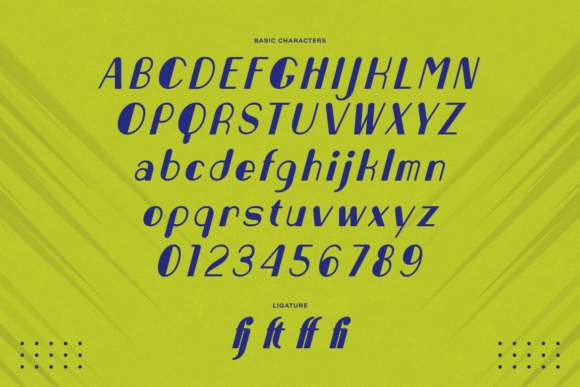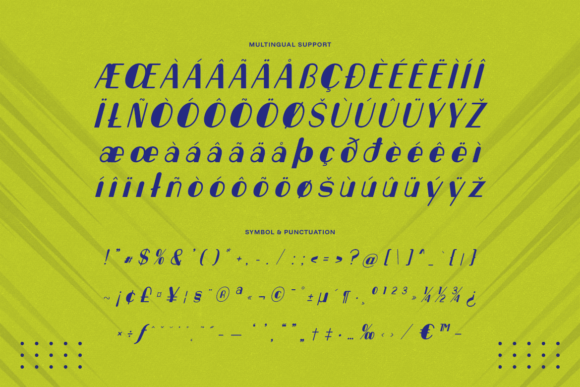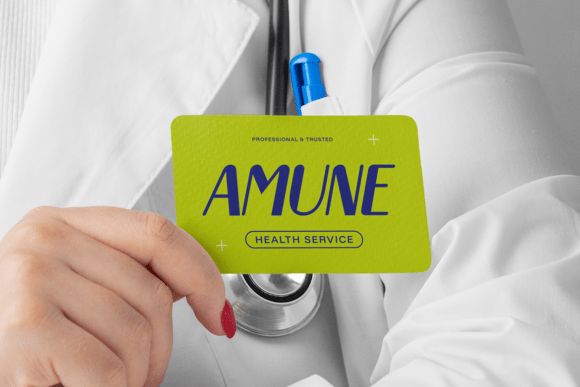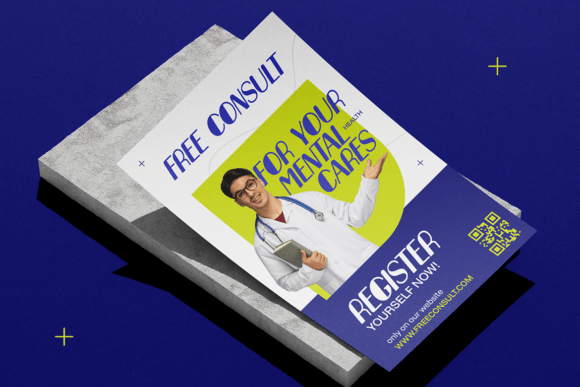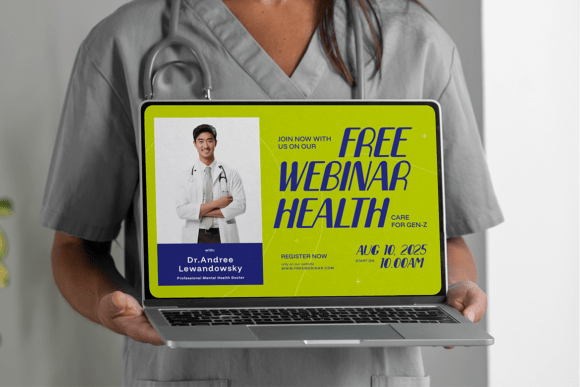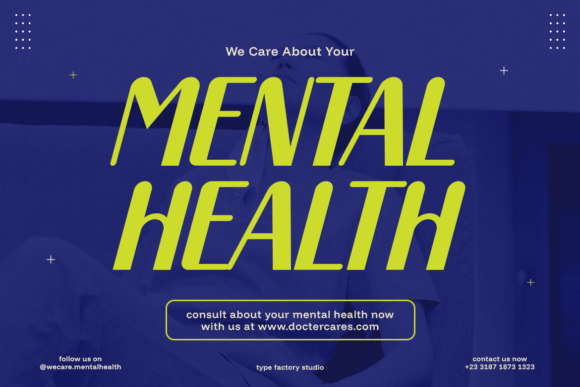
The Power of Movement in Typography
As designers, we’ve all been there – staring at a blank canvas, trying to convey a message that’s been stuck in our heads for hours. The words start to flow, and the excitement builds up. We’re on a roll, and the perfect font can make all the difference. That’s where Bigdoc Font comes in – a game-changer for anyone looking to add some energy to their typography.
Bigdoc Font is a dynamic, italic display font designed to make a statement. With its smooth curves and slanted structure, it’s perfect for headlines, posters, and any project where you want to grab attention. The consistent stroke weight keeps the text readable, even in bold compositions, making it a valuable asset for designers looking to add some flair to their work.
Whether you’re working on a branding project or creating social media graphics, Bigdoc Font is a versatile choice that’s sure to impress. Its flexibility and multilingual support make it a go-to font for designers of all levels.
Bigdoc Font Key Features
- Font Family: Bigdoc is a unique, high-quality font family designed for professional and commercial use. It comes in a variety of styles, including regular, bold, italic, and bold italic.
- Character Set: Bigdoc fonts support a wide range of languages, including Latin, Cyrillic, Greek, and many others, making it an ideal choice for global brands and organizations.
- Unique Characteristics: Bigdoc fonts are known for their clean lines, modern design, and high legibility, making them perfect for use in corporate branding, publishing, and digital media.
Bigdoc Font Review
I recently had the chance to work with the Bigdoc Font, and I must say it’s an interesting choice. Let’s dive into what works well and what doesn’t.
- The font’s unique design is a great conversation starter. It’s not your typical serif or sans-serif font, and that’s what makes it stand out.
- Bigdoc is highly legible, even at smaller font sizes. This makes it a great choice for body text or captions.
- The font’s bold weight is perfect for headings and titles. It adds a nice touch of personality to your design.
- The font’s irregularities can be a bit jarring at times. It may not be the best choice for body text or long blocks of text.
- The font’s availability in different weights and styles is limited, which can be a drawback for designers who like to have a wide range of options.
- The font may not be suitable for all types of projects, especially those that require a more professional or traditional look.
Overall, I think Bigdoc Font is a great addition to any designer’s toolkit. It’s perfect for projects that need a bit of personality and flair. However, it may not be the best choice for every project, and designers should be aware of its limitations before using it.
Tips for Getting the Most Out of Bigdoc Font
Bigdoc Font is a versatile font that can be used in various design contexts. Here are some tips for getting the most out of it:
Use Bigdoc Font for headings and titles to create a clear visual hierarchy.
Pair Bigdoc Font with other fonts to create a unique and interesting typography combination.
Bigdoc Font is commonly used in:
Brochures and flyers to create eye-catching headlines.
Business cards to add a touch of sophistication.
Presentations to create a clear and concise visual message.
Alternatives to Bigdoc Font for Designers
The Bigdoc Font is a sans-serif typeface known for its clean lines and modern feel. However, designers often seek alternative fonts to match their specific design needs. Here are four alternatives to Bigdoc Font:
Q: Can I customize Bigdoc for specific branding or design requirements?
Yes, Bigdoc is highly customizable. You can adjust the font’s weight, width, and spacing to fit your specific design needs. Additionally, the font’s OpenType features allow for advanced customizations, such as creating custom ligatures or modifying the font’s behavior in specific contexts.